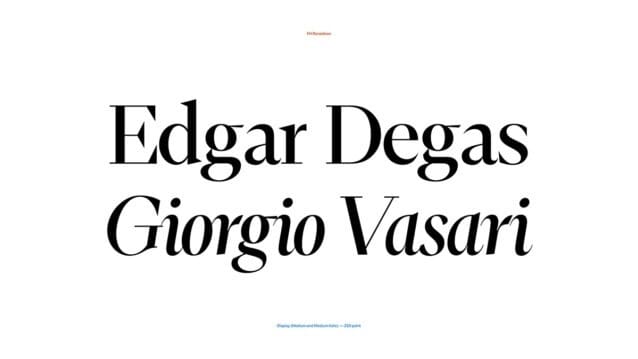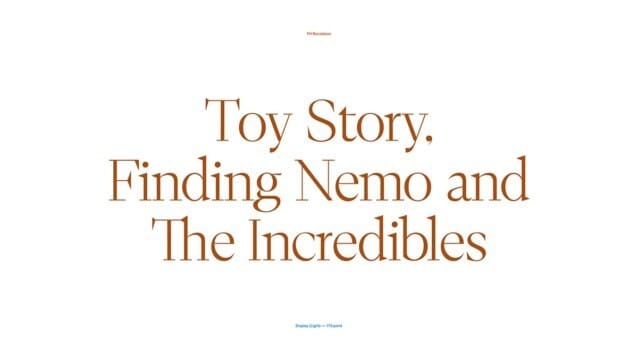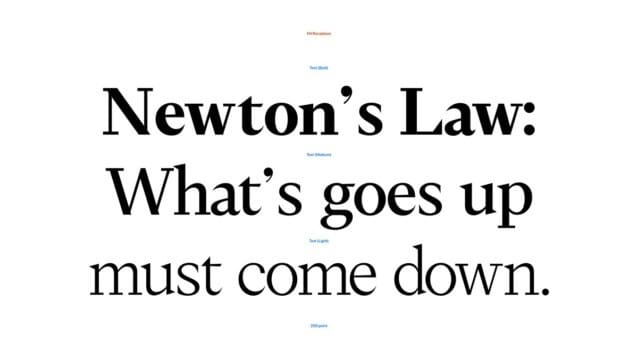
FH Ronaldson Font
FH Ronaldson Font is a minimal and classy serif font family that is perfect for editorial use. The FHRonaldson has been designed as a similar version of the FH Phemister. Phemister type feet are used sharply. The name Phemister comes from Alexander Phemister. Inspired by the Ronaldson Old Style from the same letter foundry, the name FH Ronaldson was created. Published as the 2nd version of this series. There are 3 different styles in the series; condensed, display and text.